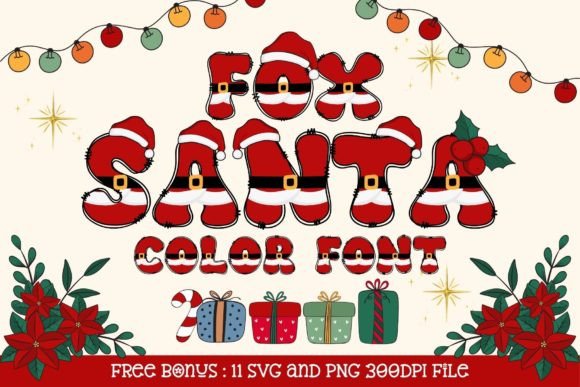
Elevate Your Holiday Designs with the Whimsical Charm of Fox Santa Font
The holiday season is upon us, and with it comes the need for festive and fun designs that capture the spirit of Christmas. If you’re looking for a font that embodies the whimsy and joy of the season, look no further than the Fox Santa Font. This delightful font is specially crafted to infuse your projects with the joyful spirit of Christmas, featuring a jolly old Santa Claus complete with a festive Santa hat on top for every letter from A to Z.
What is Fox Santa Font?
Fox Santa Font is a playful and decorative font that is perfect for holiday-themed creations. Each letter of the alphabet is designed to feature a jolly old Santa Claus complete with a festive Santa hat on top, making it a unique and fun addition to any design. The font is available for use in a variety of formats, including greeting cards, posters, banners, invitations, and more.
Key Features of Fox Santa Font
- Whimsical Design: Each letter of the alphabet features a jolly old Santa Claus complete with a festive Santa hat on top.
- Playful and Decorative: The font has a playful and decorative style that is perfect for holiday-themed designs.
- Multipurpose: Fox Santa Font can be used in a variety of formats, including greeting cards, posters, banners, invitations, and more.
How to Use Fox Santa Font in Your Holiday Designs
- Greeting Cards: Use Fox Santa Font to create festive and fun greeting cards for friends and family.
- Posters: Create eye-catching posters for holiday events and promotions using Fox Santa Font.
- Banners: Use Fox Santa Font to create festive banners for holiday parties and events.
- Invitations: Create festive and fun invitations for holiday parties and events using Fox Santa Font.
Benefits of Using Fox Santa Font
There are many benefits to using Fox Santa Font in your holiday designs. Here are a few:
- Unique and Fun: Fox Santa Font adds a unique and fun touch to any design, making it perfect for holiday-themed creations.
- Time-Saving: Using a pre-made font like Fox Santa Font can save you time and effort in your design work.
- Professional-Looking: Fox Santa Font is designed to look professional and polished, making it perfect for use in a variety of formats.
Tips for Getting the Most Out of Fox Santa Font
Here are a few tips for getting the most out of Fox Santa Font:
- Experiment with Different Colors: Try out different colors and color combinations to find the perfect look for your design.
- Use with Other Fonts: Consider using Fox Santa Font in combination with other fonts to create a unique and interesting look.
- Play with Size and Orientation: Experiment with different sizes and orientations to find the perfect fit for your design.
In conclusion, Fox Santa Font is a fun and festive font that is perfect for holiday-themed designs. With its whimsical design and playful style, it’s the perfect addition to any project that needs a touch of holiday cheer. Whether you’re creating greeting cards, posters, banners, or invitations, Fox Santa Font is sure to elevate your designs and capture the spirit of the season.
- Q: What is Fox Santa Font? A: Fox Santa Font is a playful and decorative font that features a jolly old Santa Claus complete with a festive Santa hat on top for every letter from A to Z.
- Q: What types of projects can I use Fox Santa Font for? A: Fox Santa Font can be used for a variety of projects, including greeting cards, posters, banners, invitations, and more.